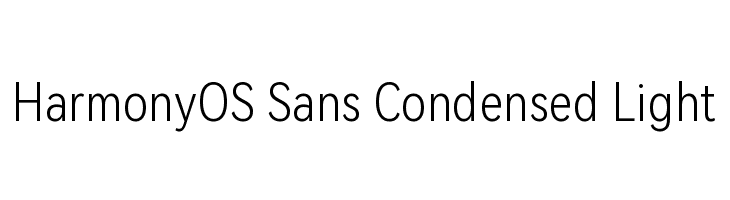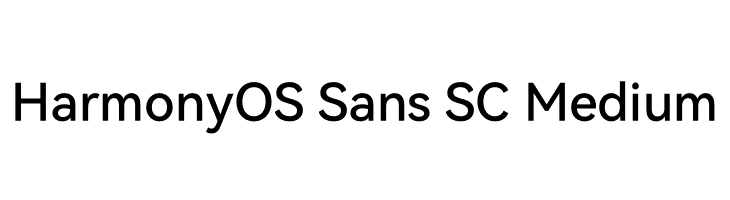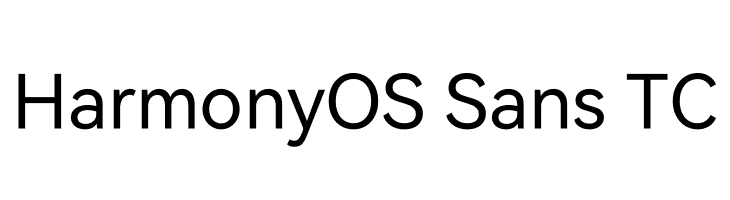
A thin, modern sans-serif font with geometric precision and elegant simplicity.
A modern, light, and condensed sans-serif font with a clean and minimalistic design.
A modern, light, and clean sans-serif font with excellent readability.
A modern, condensed sans-serif font with excellent readability and space efficiency.
A modern, clean sans-serif font with excellent readability.
A modern, light, italic sans-serif font with clean lines and a dynamic slant.
A modern, bold, and condensed sans-serif typeface with excellent readability.
A bold, condensed sans-serif font with strong, uniform strokes and minimal contrast.
A modern, geometric sans-serif font with balanced proportions and clear readability.
A bold, modern sans-serif font with a clean and impactful design.